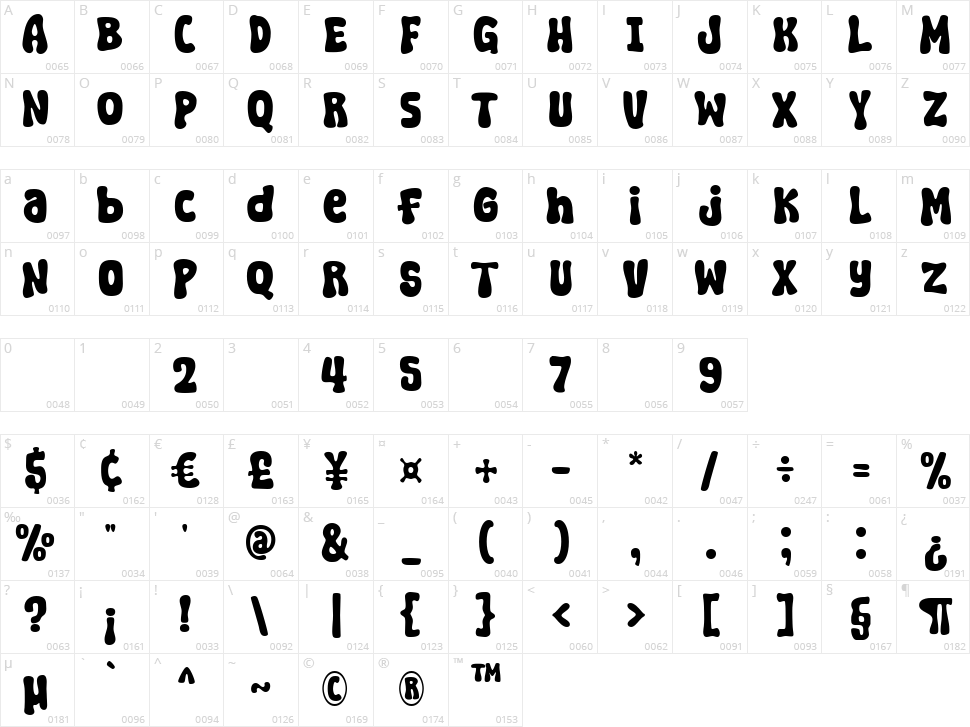
Super Quench
Super Quench: A Font Full of Fun and Fizz!
Super Quench is a font that explodes with personality, playfully combining the bubbly charm of a classic bubble font with the bold impact of a strong, eye-catching design. It's perfect for adding a touch of whimsy and energy to your projects, whether it's a playful logo, a vibrant website header, or a quirky social media post